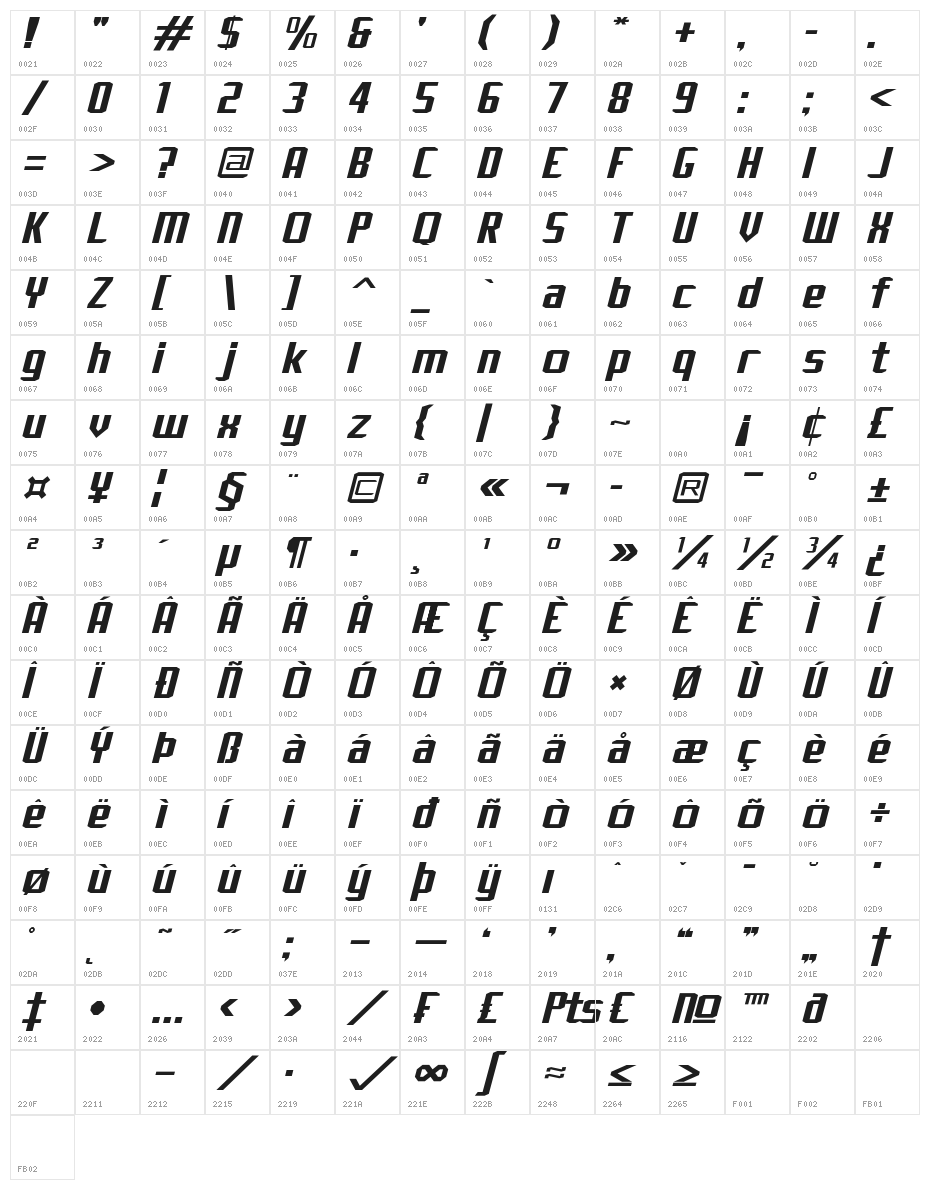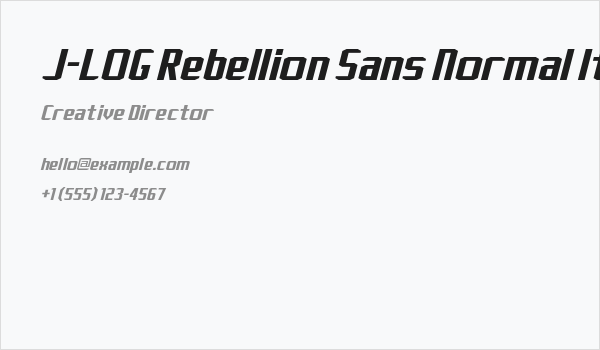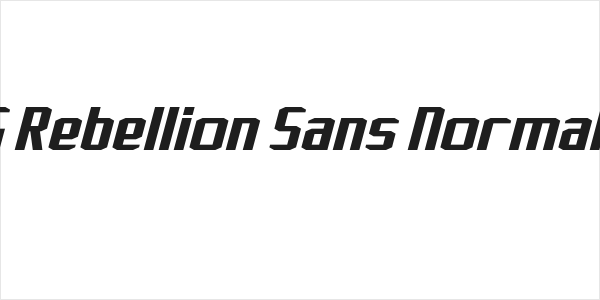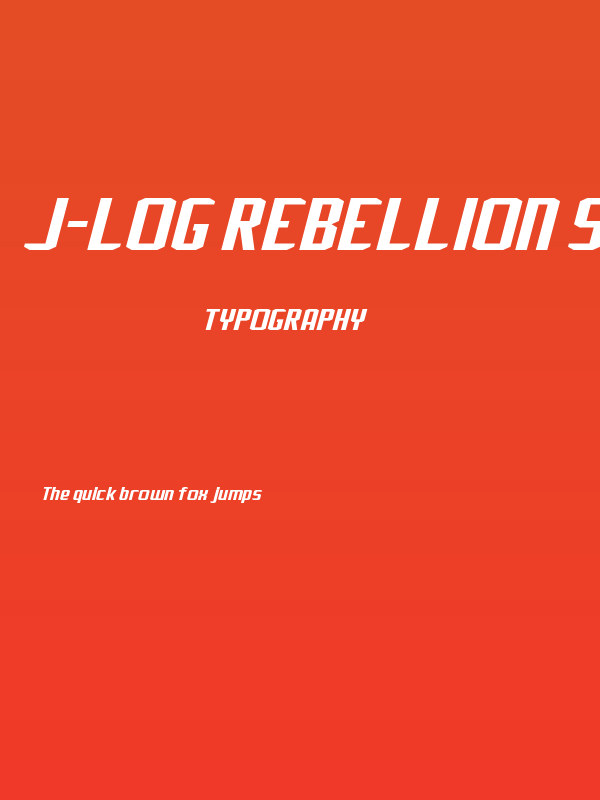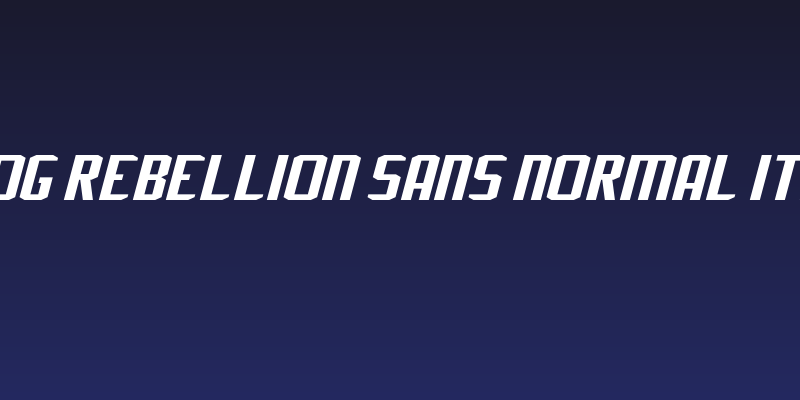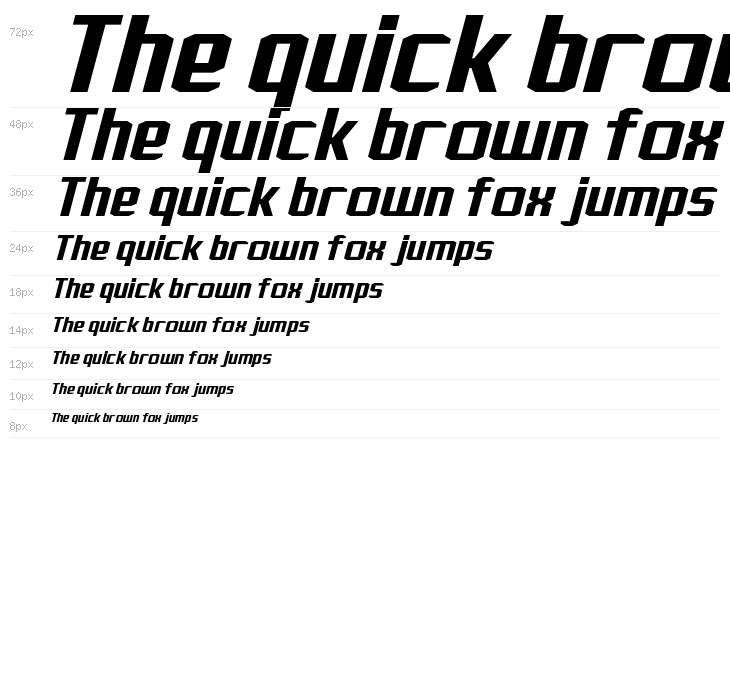
J-LOG Rebellion Sans Normal Italic Font
J-LOG Rebellion Sans Normal Italic Description
| Use Case | Logos, Headlines, Branding |
| Proposed Projects | Ideal for branding, sports team logos, futuristic designs, and dynamic advertising campaigns. |